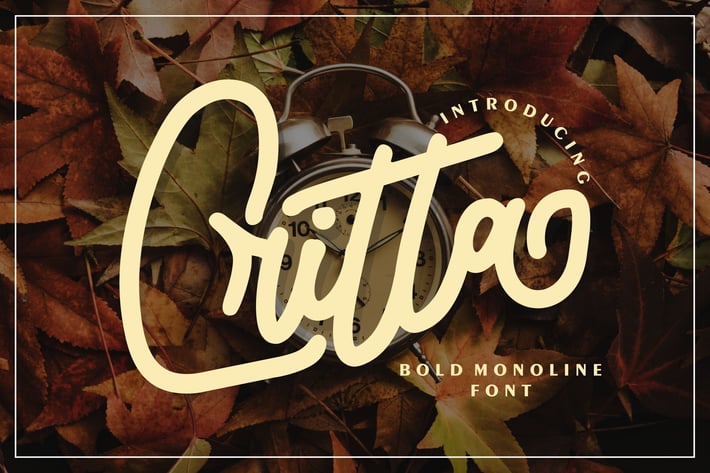
Critta | Bold Monoline Font
Critta | Bold Monoline Font with a calligraphy style, So beautiful on invitation like greeting cards, branding materials, business cards, quotes, posters, and more!